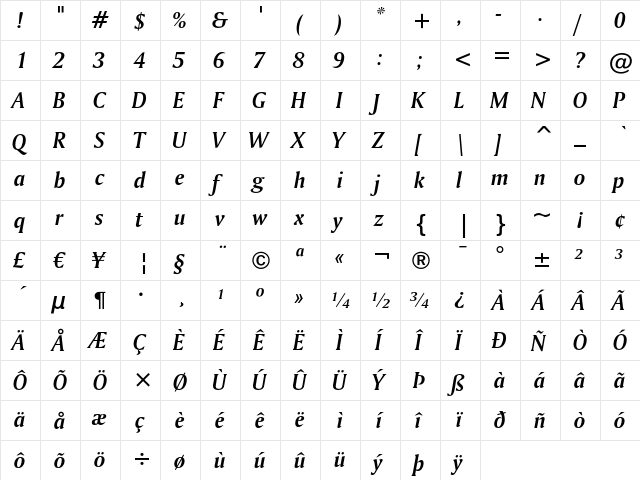
Bitstream Amerigo Bold Italic
Design Context for Bitstream Amerigo Typeface
Bitstream Amerigo is a composed and adaptable typeface that performs quietly and consistently across a wide range of design contexts. The dynamic lean of this cut emphasises speed and emphasis in any layout. Its bold stroke weight gives it real presence on the page.
Pro Tip: Try Bitstream Amerigo for annotation and caption copy alongside an upright companion — the contrast in angle creates a dynamic but ordered typographic system.